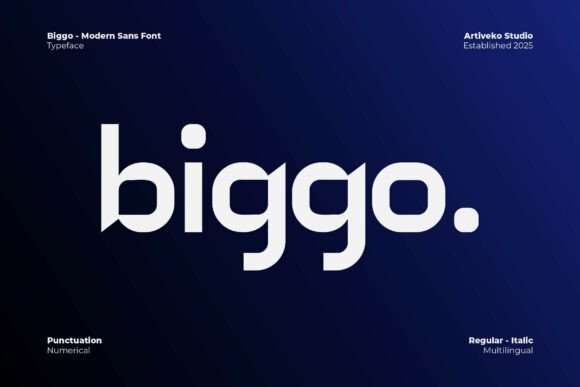
Introducing Biggo Font: The Ultimate Sans Serif for Bold Statements
In the world of typography, fonts play a crucial role in conveying messages, evoking emotions, and creating lasting impressions. For designers and crafters, finding the right font can be a daunting task, especially when it comes to making a statement. That’s where Biggo Font comes in – a strong and confident sans serif font designed to turn heads. With its bold proportions, clean lines, and geometric feel, Biggo is the perfect choice for headlines, branding, posters, editorial layouts, logo design, and impactful marketing visuals.
The Power of Biggo Font
Biggo Font is not just another sans serif font; it’s a game-changer. Its bold and confident design makes it perfect for designers who want to create a lasting impression. The font’s clean lines and geometric feel give it a modern and sleek look that’s sure to grab attention. Whether you’re working on a branding project, creating a poster, or designing a logo, Biggo Font is the perfect choice.
Key Features of Biggo Font
- Bold Proportions: Biggo Font features bold proportions that make it perfect for headlines and titles. Its large x-height and wide letter spacing create a clear and readable design that’s easy on the eyes.
- Clean Lines: The font’s clean lines and geometric feel give it a modern and sleek look that’s perfect for contemporary designs.
- Geometric Feel: Biggo Font’s geometric feel makes it perfect for designs that require a sense of precision and accuracy.
- Versatility: Biggo Font is a versatile font that can be used for a wide range of design projects, from branding and posters to editorial layouts and marketing visuals.
Why Choose Biggo Font?
So, why choose Biggo Font over other sans serif fonts? Here are just a few reasons:
- Uniqueness: Biggo Font’s bold and confident design makes it stand out from other sans serif fonts.
- Readability: The font’s clean lines and large x-height make it easy to read, even at small sizes.
- Flexibility: Biggo Font can be used for a wide range of design projects, from print to digital.
- Time-Saving: With Biggo Font, you can create professional-looking designs in no time, saving you time and effort.
How to Use Biggo Font
- Headlines: Use Biggo Font for headlines and titles to create a bold and confident look.
- Branding: Use Biggo Font for branding projects to create a modern and sleek look.
- Posters: Use Biggo Font for posters to grab attention and create a lasting impression.
- Editorial Layouts: Use Biggo Font for editorial layouts to create a clean and readable design.
In conclusion, Biggo Font is a powerful and versatile sans serif font that’s perfect for designers and crafters who want to make a statement. With its bold proportions, clean lines, and geometric feel, Biggo Font is the perfect choice for headlines, branding, posters, editorial layouts, logo design, and impactful marketing visuals. So, why wait? Download Biggo Font today and take your designs to the next level.